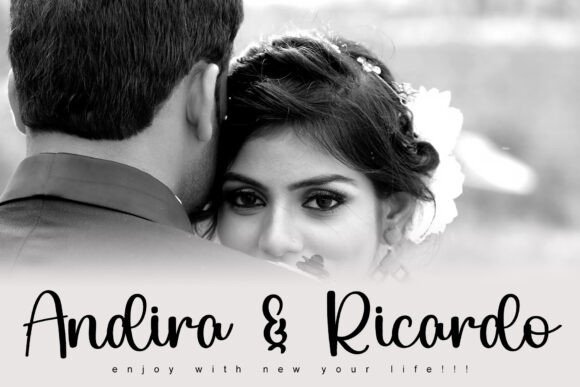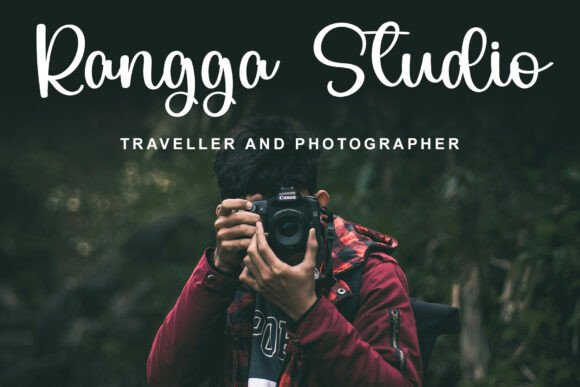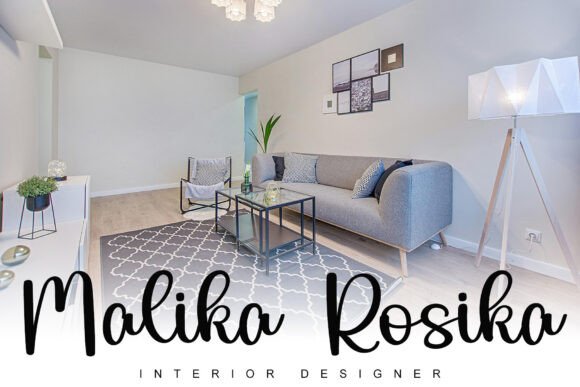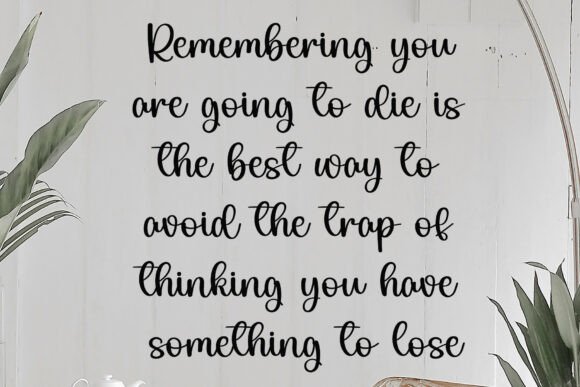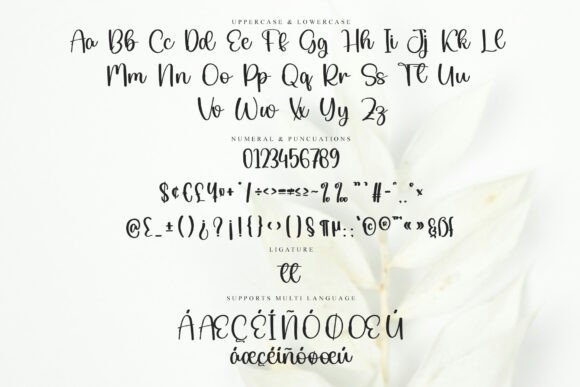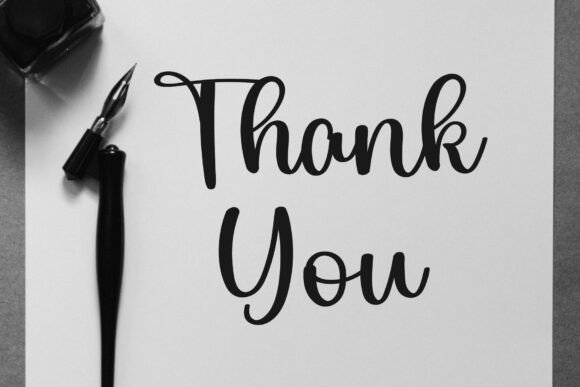
Introducing California Signature Font: Add a Touch of Holiday Magic to Your Designs
Are you looking for a font that embodies the festive spirit of the holiday season? Look no further than California Signature Font, a playful and enchanting typeface perfect for adding a touch of magic to your Christmas cards, decorations, and more. In this article, we’ll dive into the features and benefits of California Signature Font, and explore how you can use it to spread joy and cheer in your designs.
What is California Signature Font?
California Signature Font is a festive and playful typeface designed to capture the essence of the holiday season. Adorned with enchanting swashes, this font is perfect for adding a touch of whimsy and fun to your designs. Whether you’re creating Christmas cards, decorations, or social media graphics, California Signature Font is sure to bring a smile to your audience’s faces.
Key Features of California Signature Font
- Festive and Playful Design: California Signature Font is designed to evoke the magic and wonder of the holiday season. Its playful and festive design makes it perfect for creating Christmas cards, decorations, and more.
- Enchanting Swashes: The font features enchanting swashes that add a touch of elegance and sophistication to your designs.
- PUA Encoded: California Signature Font is PUA encoded, which means you can access all of the amazing glyphs and ligatures with ease. This makes it simple to use and customize the font to suit your needs.
Benefits of Using California Signature Font
So why choose California Signature Font for your holiday designs? Here are just a few benefits of using this festive typeface:
- Adds a Touch of Holiday Magic: California Signature Font is designed to capture the essence of the holiday season. By using this font, you can add a touch of magic and wonder to your designs.
- Perfect for Christmas Cards and Decorations: The font’s festive and playful design makes it perfect for creating Christmas cards, decorations, and more.
- Great for Social Media Graphics: The font’s playful and festive design makes it perfect for creating social media graphics that will stand out and grab your audience’s attention.
How to Use California Signature Font in Your Designs
Using California Signature Font in your designs is easy. Here are a few tips to get you started:
- Pair it with Other Festive Fonts: California Signature Font pairs perfectly with other festive fonts. Try pairing it with a bold, sans-serif font for a fun and playful look.
- Use it for Headings and Titles: The font’s playful and festive design makes it perfect for headings and titles. Use it to add a touch of holiday magic to your designs.
- Experiment with Swashes and Ligatures: California Signature Font features a range of swashes and ligatures that can add a touch of elegance and sophistication to your designs. Experiment with different combinations to find the perfect look for your project.